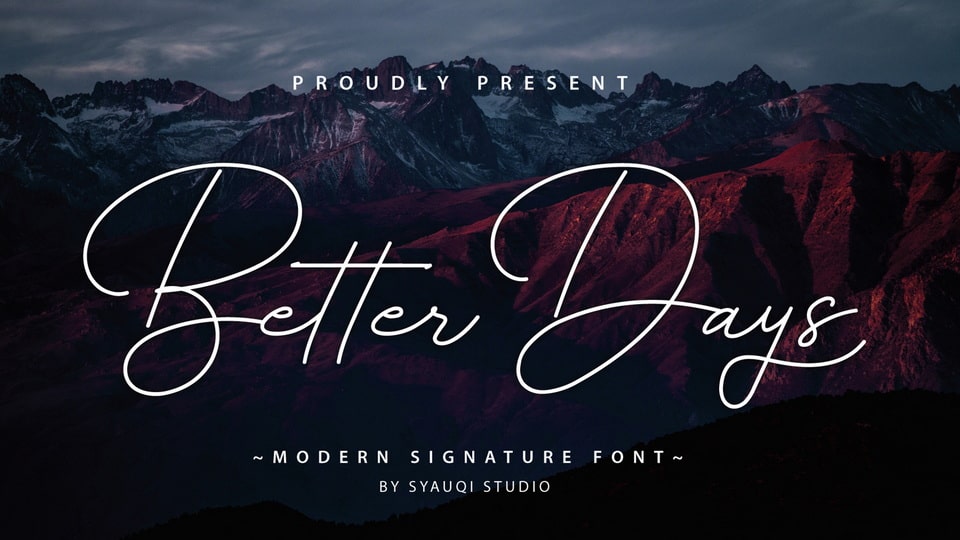
Download Better Days font, a modern signature typeface the perfect blend of elegance and modernity, designed to elevate your brand and creative projects with a distinctive, personal touch.
Designer: Syauqi Studio